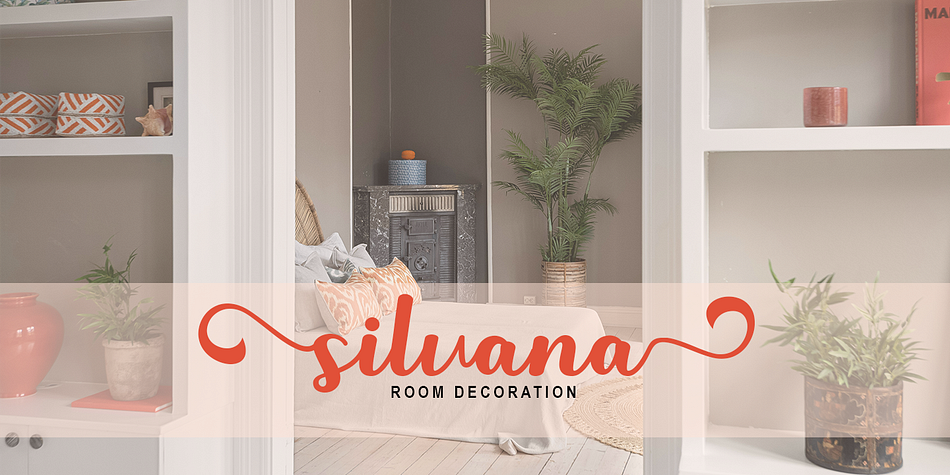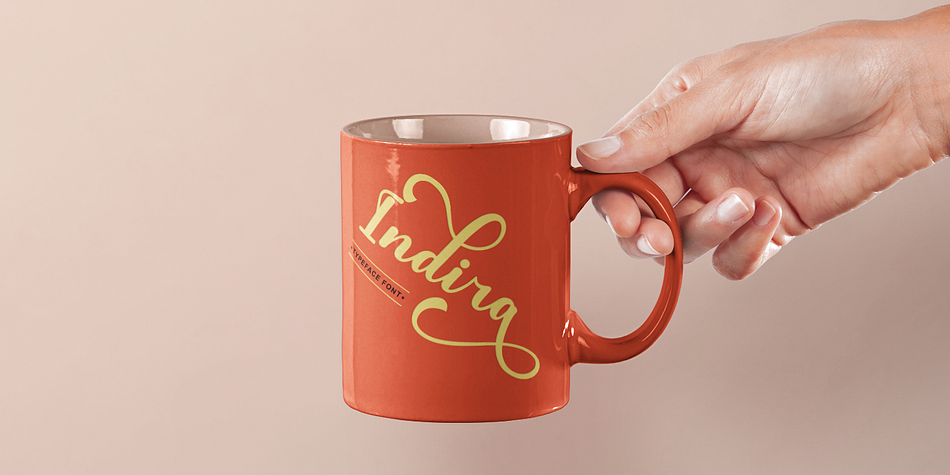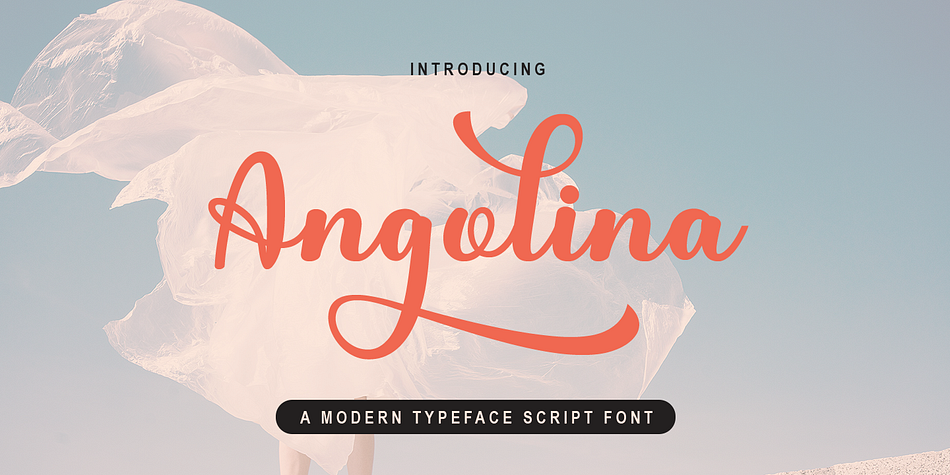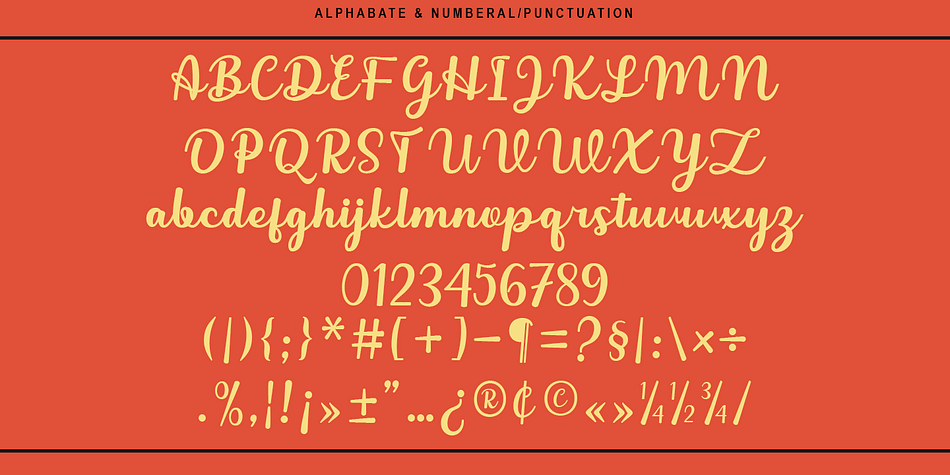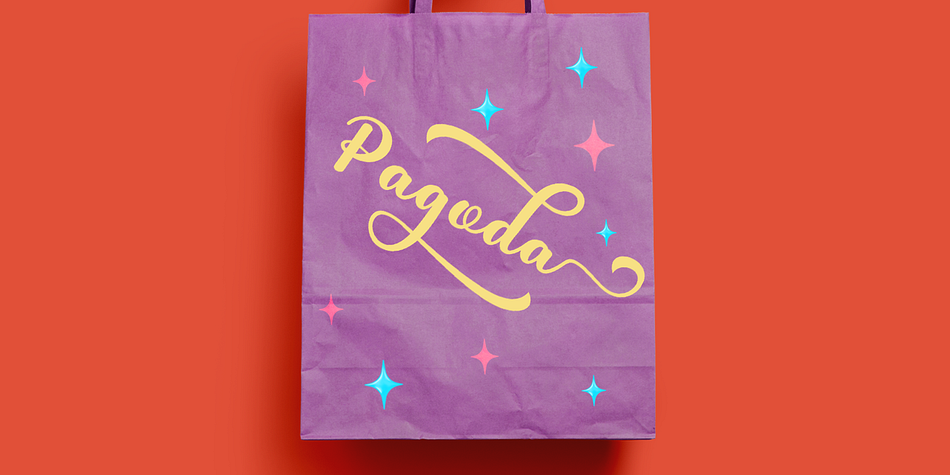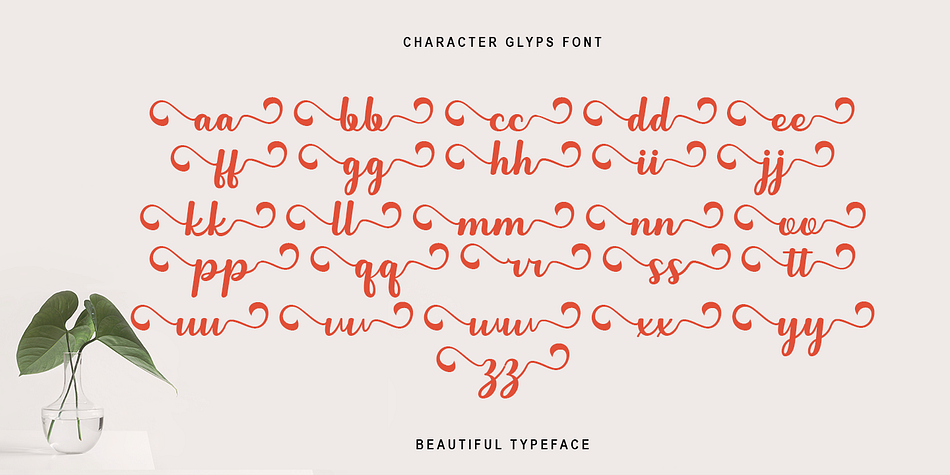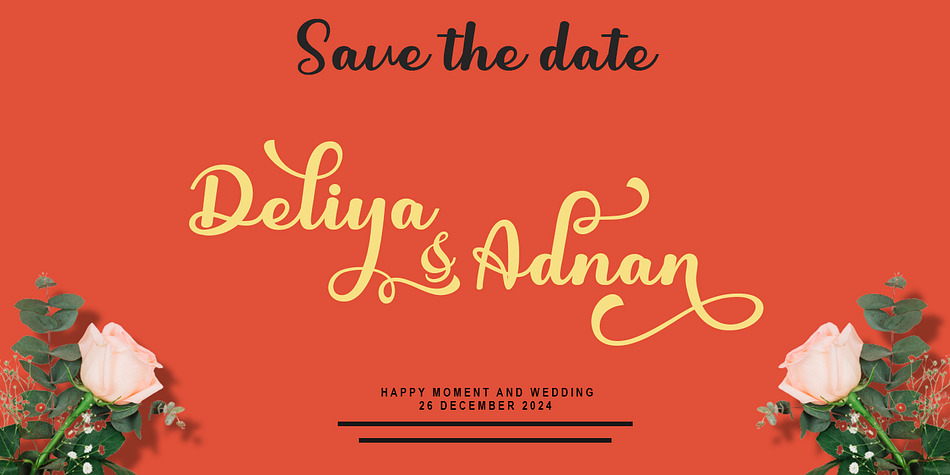
Angoline
Angoline is a brush script font family published by Gatype.
Angoline is a script font with a soft and elegant handwritten style. Perfect for creative projects like invitations, branding, and designs that need a personal touch.